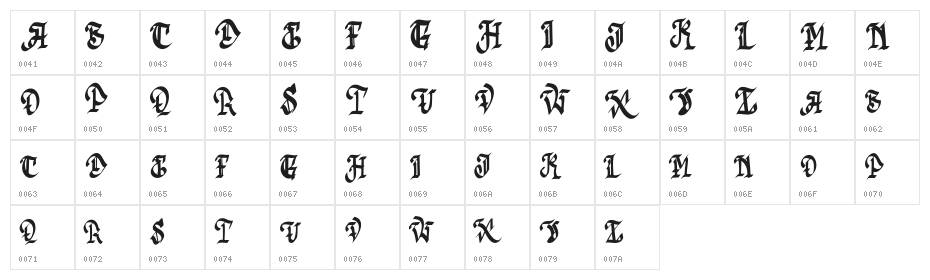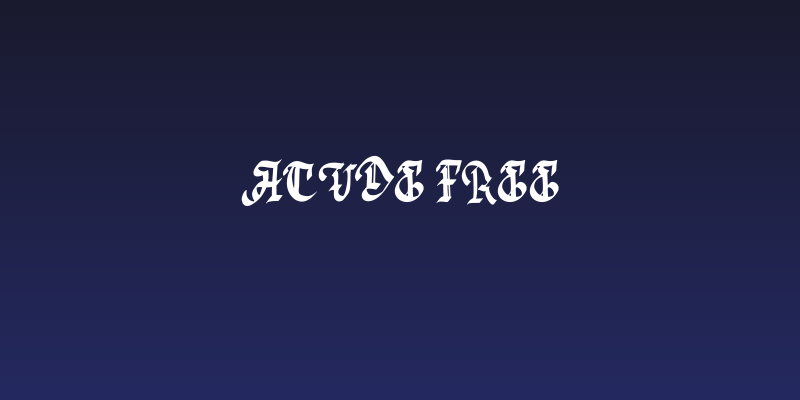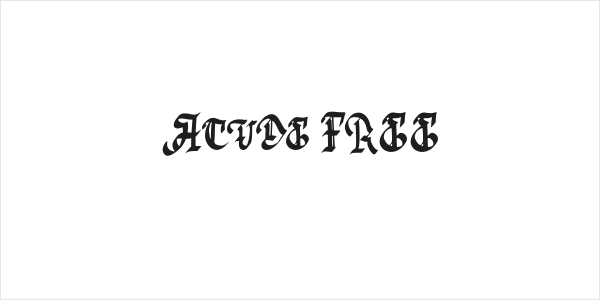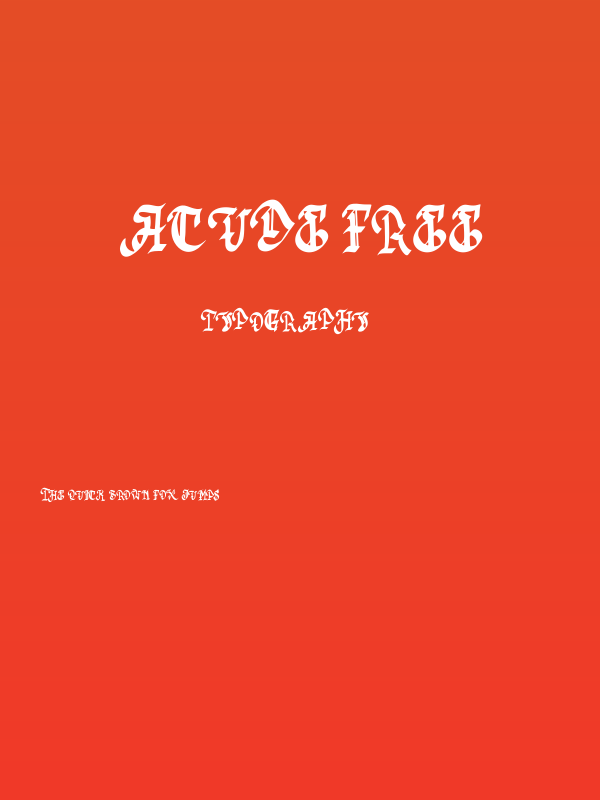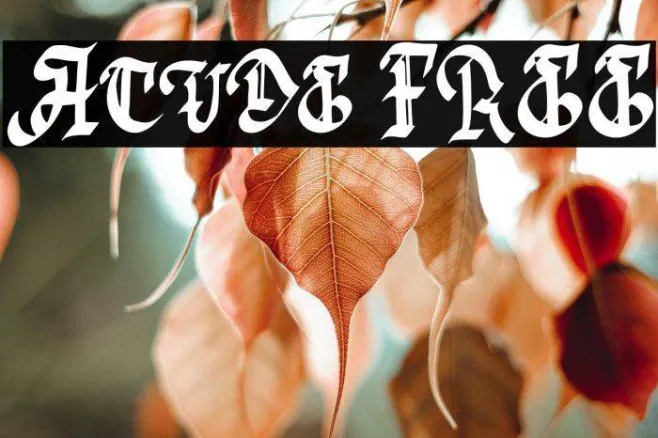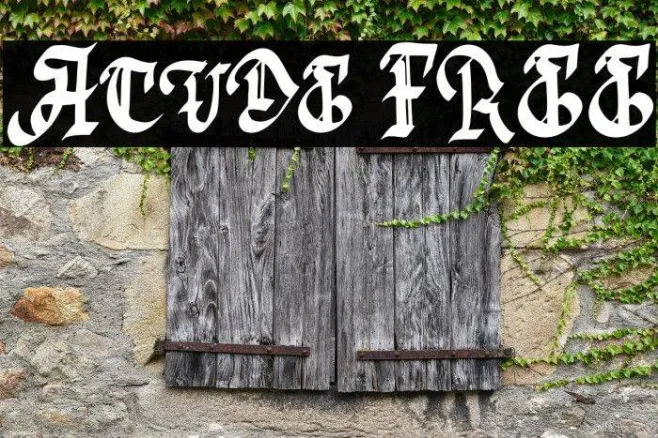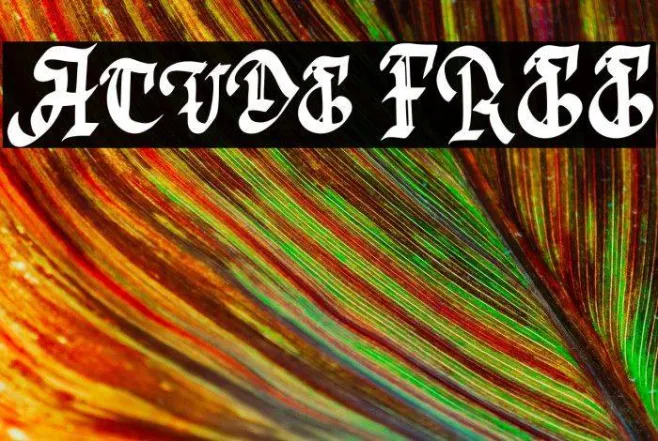
Acude FREE Font
Acude FREE Description
This font exhibits a bold and dramatic style, characterized by its intricate and ornate letterforms. The strokes are thick and angular, with sharp edges and pointed serifs that give it a distinctive Gothic appearance. The uppercase letters are particularly elaborate, featuring exaggerated flourishes and decorative elements that enhance its medieval aesthetic. The lowercase letters maintain a consistent style, though they are slightly more restrained in their embellishments. The numbers and special characters are designed to match the overall theme, ensuring a cohesive look across all glyphs. This font is ideal for projects that require a historical or traditional feel, such as event invitations, posters, or branding for vintage-themed products.